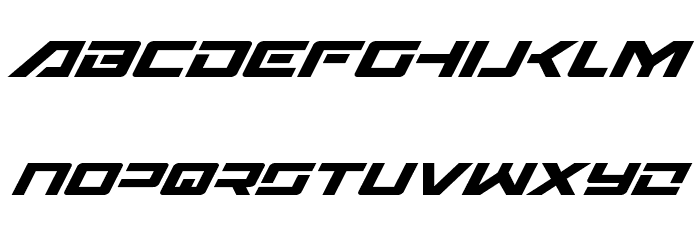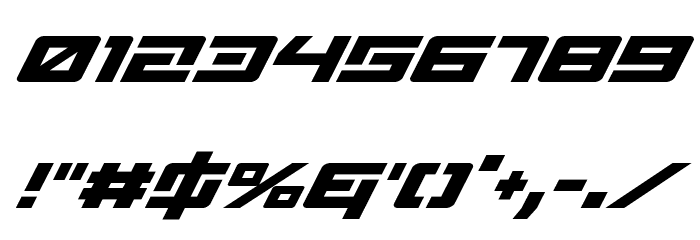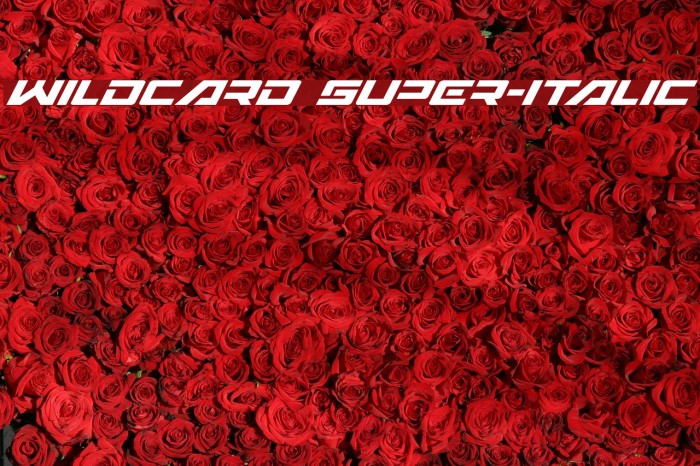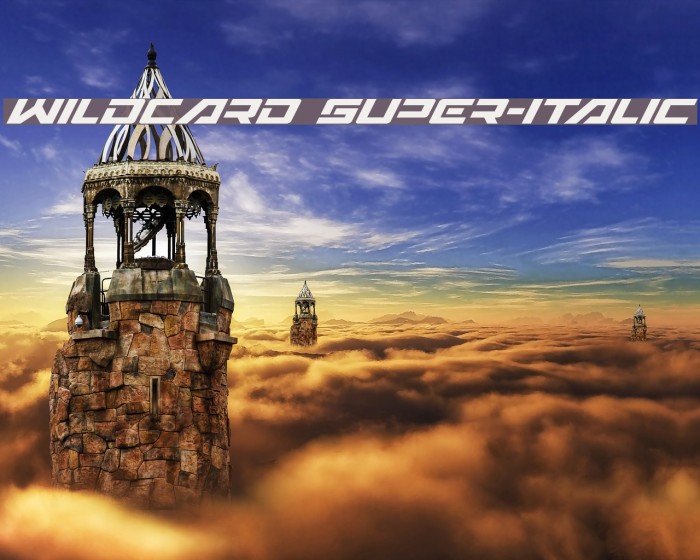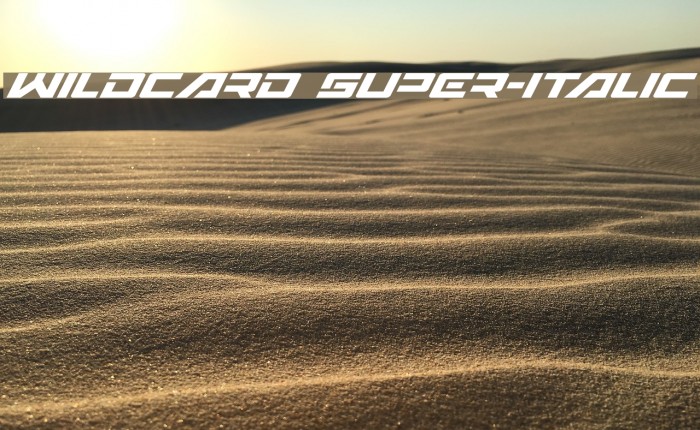
Wildcard Super-Italic Font
This font features a dynamic and futuristic design, characterized by its sharp angles and italicized form. The letters are bold and have a distinct forward slant, giving a sense of motion and speed. The geometric shapes and clean lines contribute to a modern and edgy appearance, making it suitable for projects that require a strong visual impact. The uppercase and lowercase letters maintain a consistent style, while the numerals and special characters complement the overall aesthetic. This font is ideal for use in technology-related themes, sports branding, or any creative project that aims to convey energy and innovation.
A bold, italicized font with sharp angles and a futuristic design.
- Proposed Projects: Ideal for technology branding, sports logos, futuristic designs, and dynamic advertising.